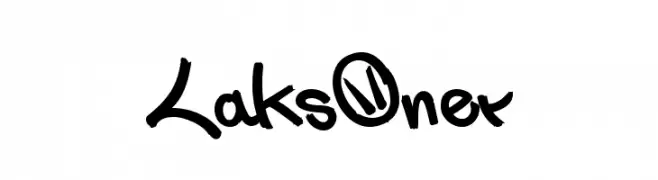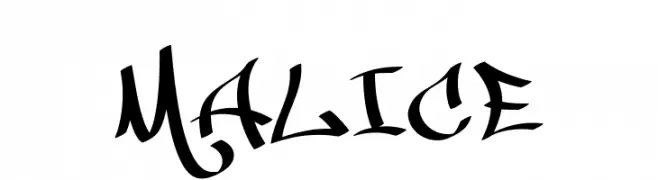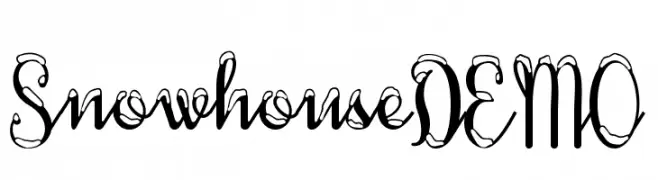
A decorative display font inspired by vintage theater signs with an Art Deco flair.
A flowing, cursive font with elegant loops and artistic flair.
A playful, wavy font with bold, dynamic strokes and artistic flair.
A playful handwritten script font with flowing, connected letters and whimsical flair.
A bold, expressive handwritten font with dynamic strokes and artistic flair.
An elegant and artistic script font with flowing, interconnected letters and decorative flair.